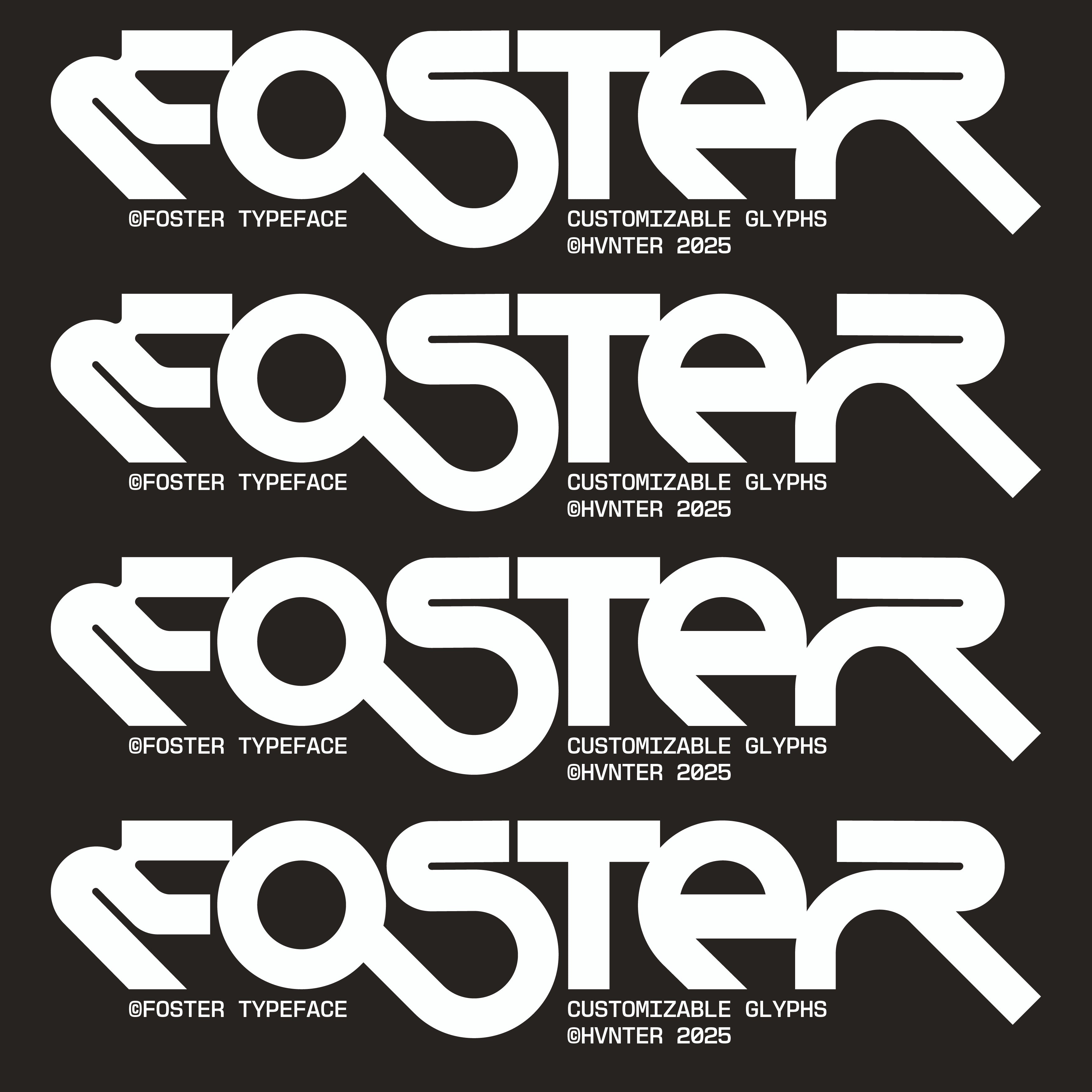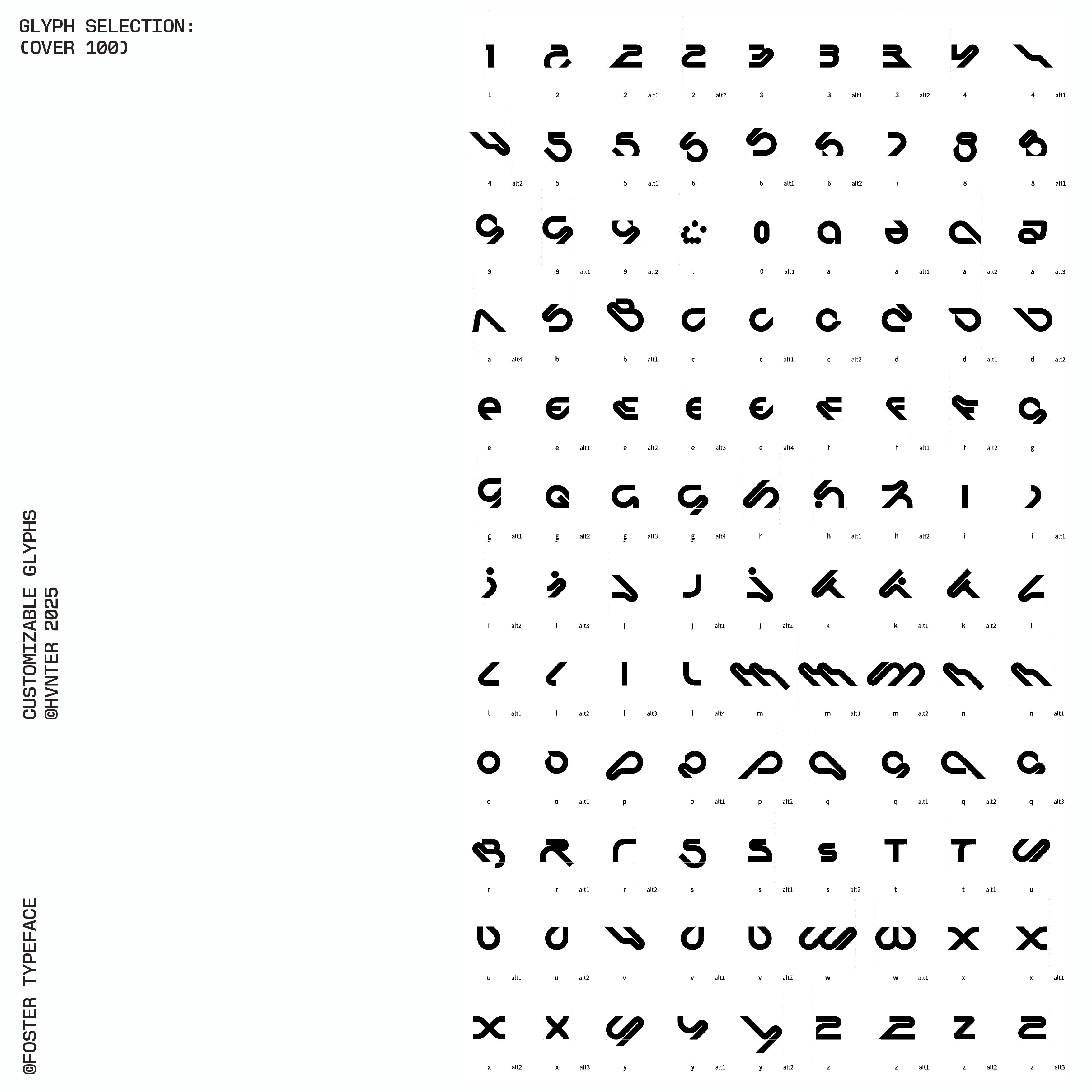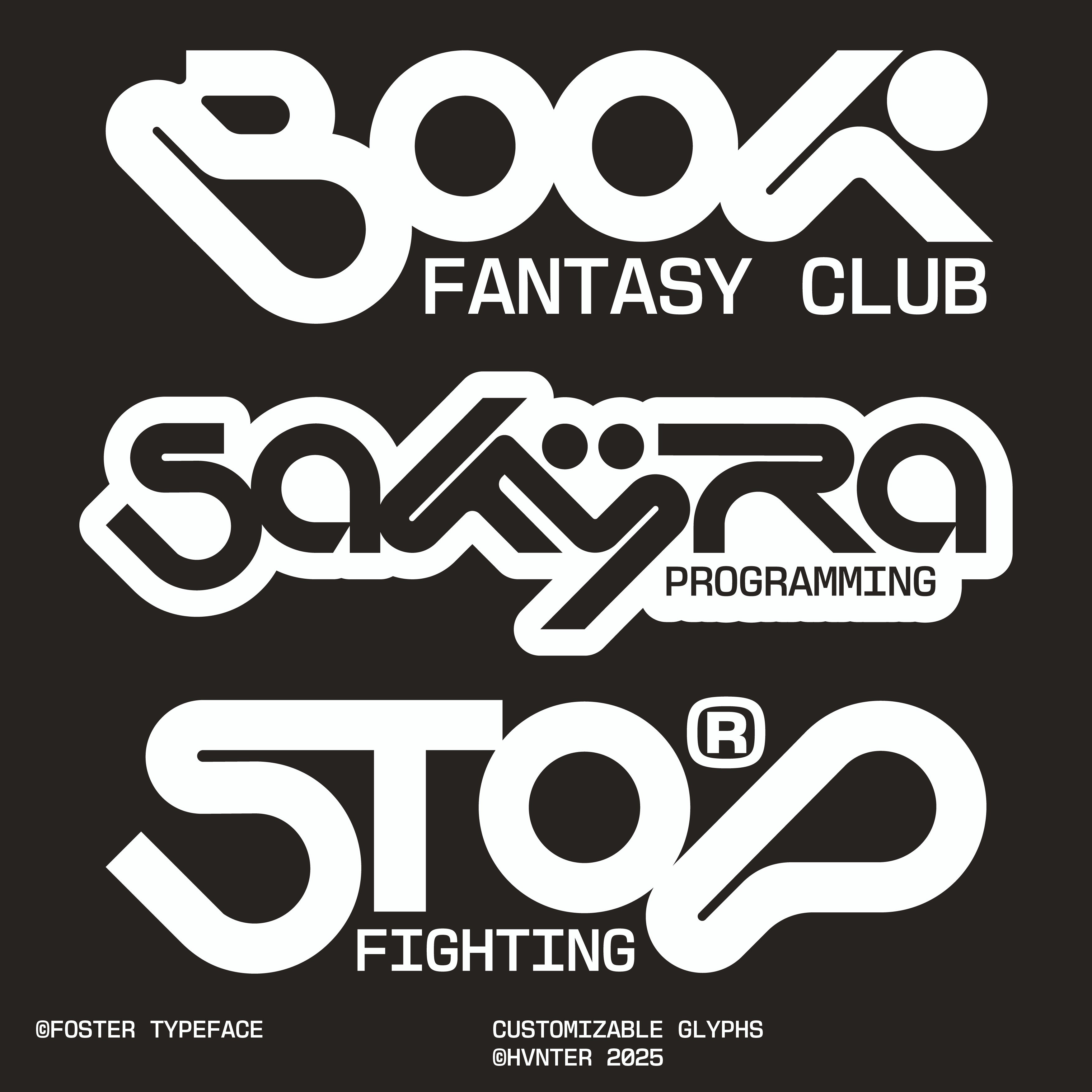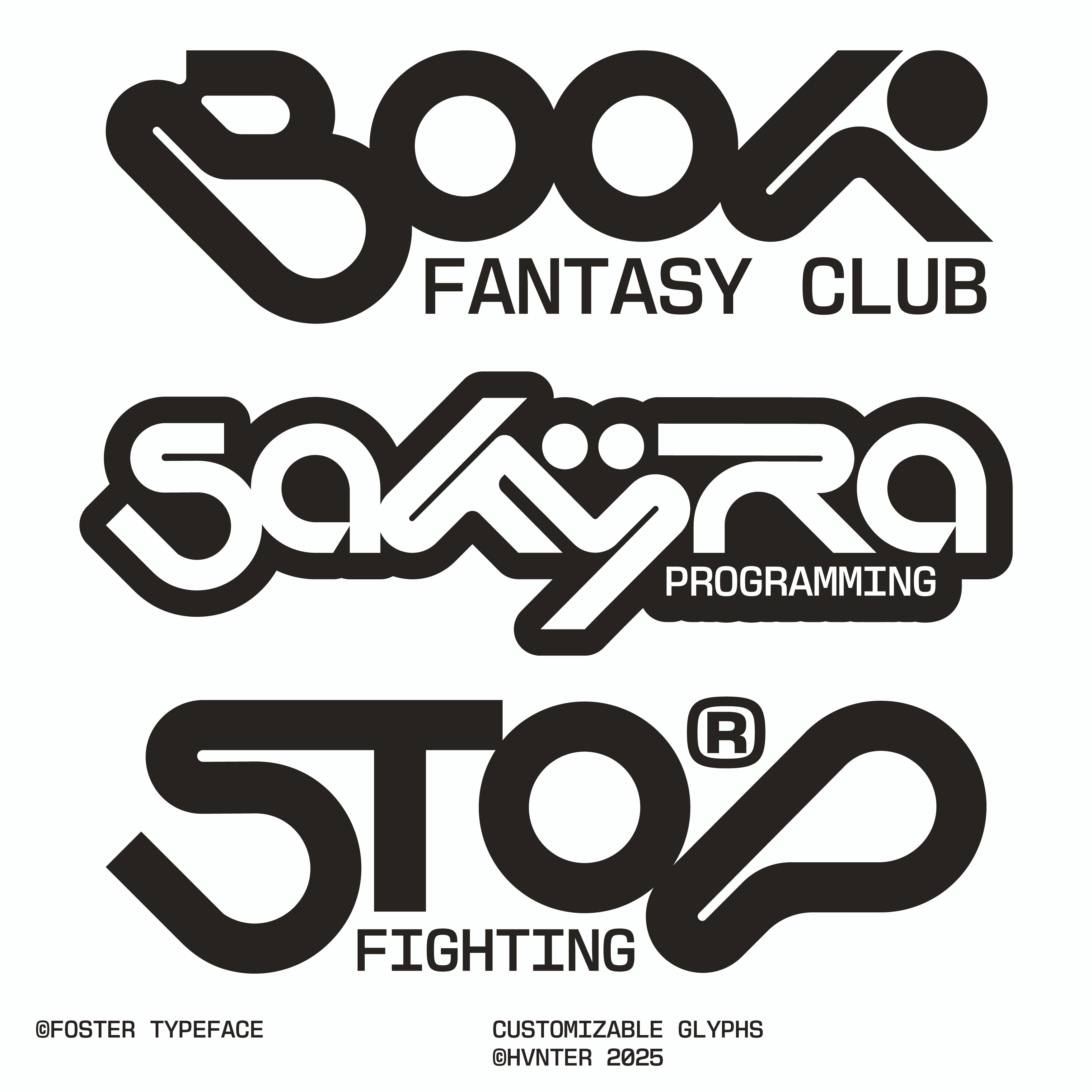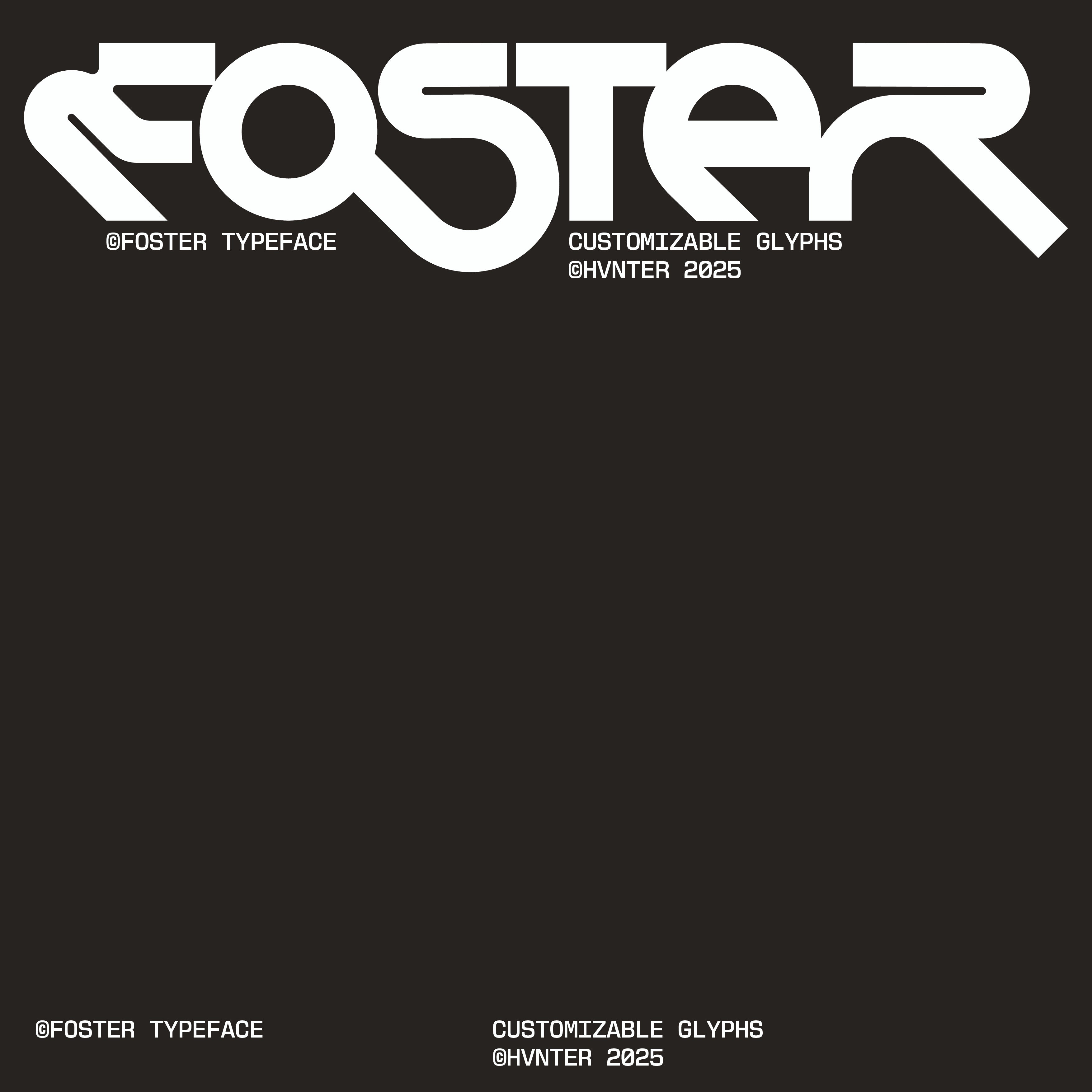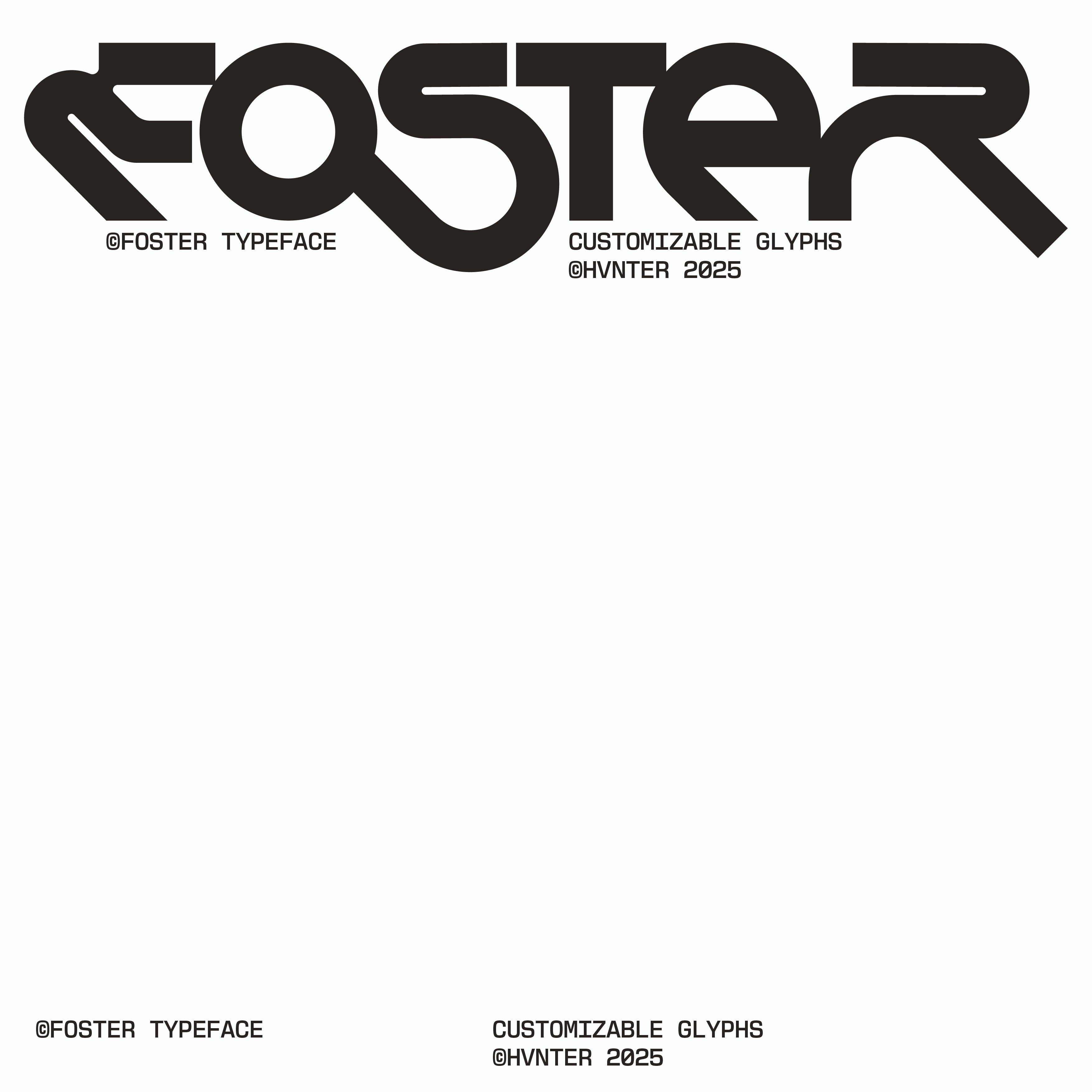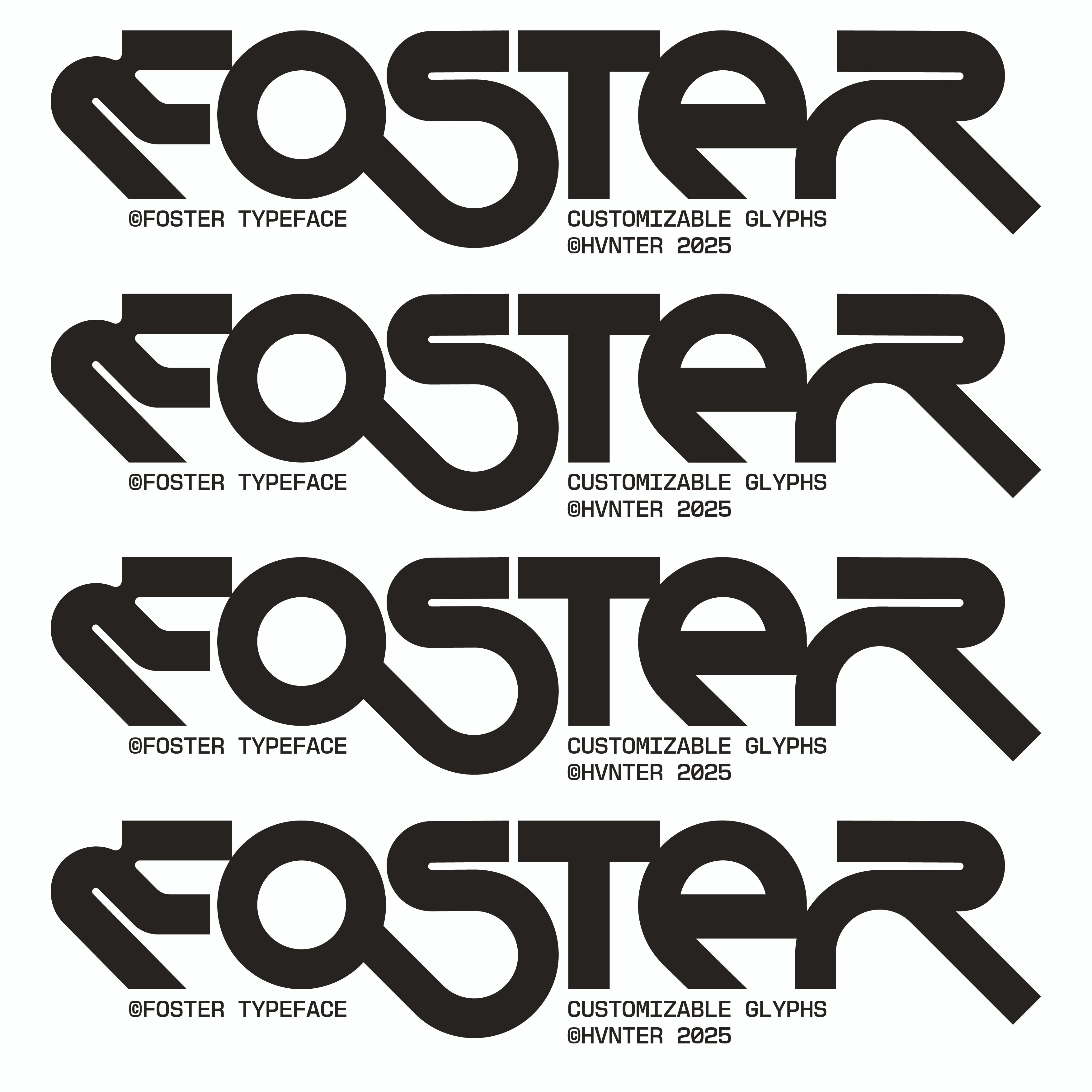
Foster Typeface
Foster Typeface is a highly customizable typeface featuring over 100 glyphs, including A-Z, 0-9, and basic symbols, designed to facilitate the creation of unique custom typography. It is tagged with various themes such as cyber, retro, and futuristic.
Ideal for futuristic and retro-inspired graphic design projects. Perfect for posters, branding, album covers, and digital media, ensuring a unique and customizable typographic experience that stands out in any creative endeavor.